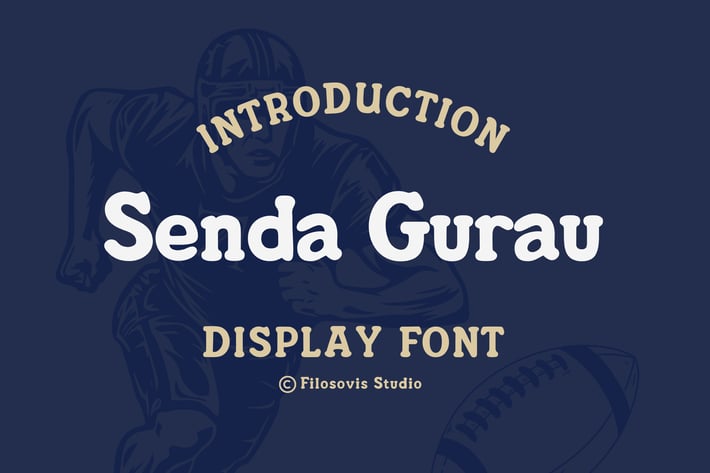
Senda Gurau | Display Font
Description
For your creative project, use the Senda Gurau-themed Display typeface. Display typeface is appropriate for every kind of design you produce, including greeting cards, posters, logos, and branding.